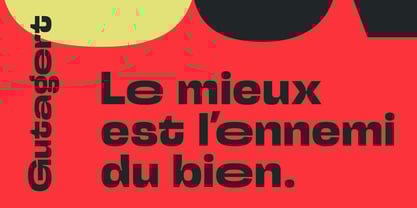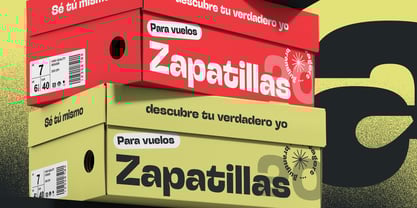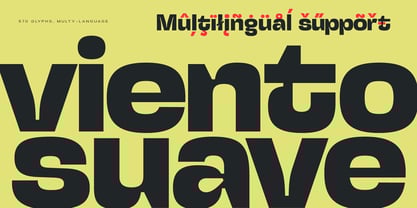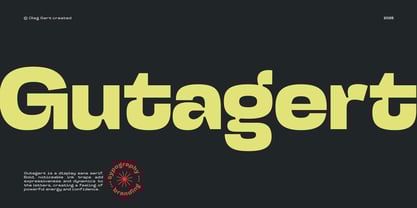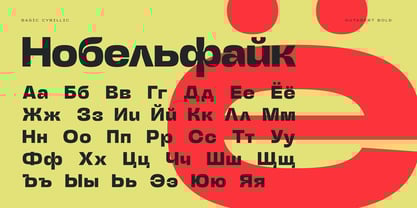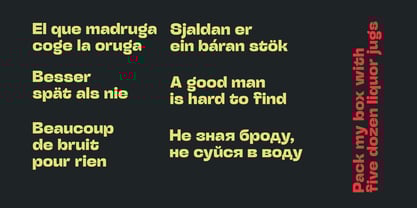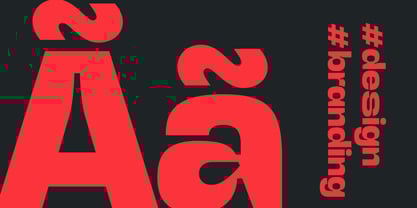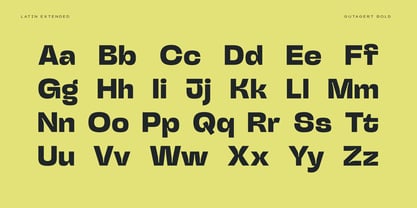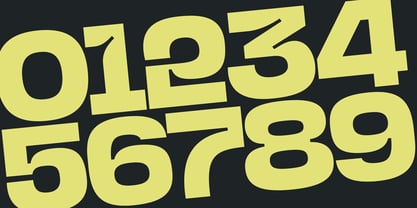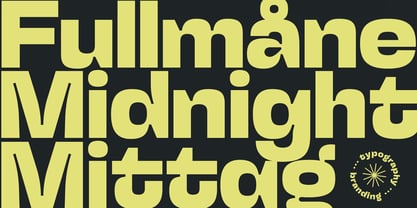
Gutagert
by Oleg Gert
The Gutagert Font Family was designed by Oleg Gert and published by Oleg Gert. Gutagert contains 1 styles.
Gutagert is a display sans serif. Bold, noticeable ink traps add expressiveness and dynamics to the letters, creating a feeling of powerful energy and confidence.
Gutagert – feels great on both paper and screen. This font is designed to shine in headlines and logos, turning them into stylish accents. Type it in short texts to give them a modern, unique character that will not go unnoticed. This font is designed to attract attention. Gutagert is perfect for headlines, posters, branding and other projects where a strong statement is required. Its characteristic features transform text into a visual work filled with charisma and unique style.